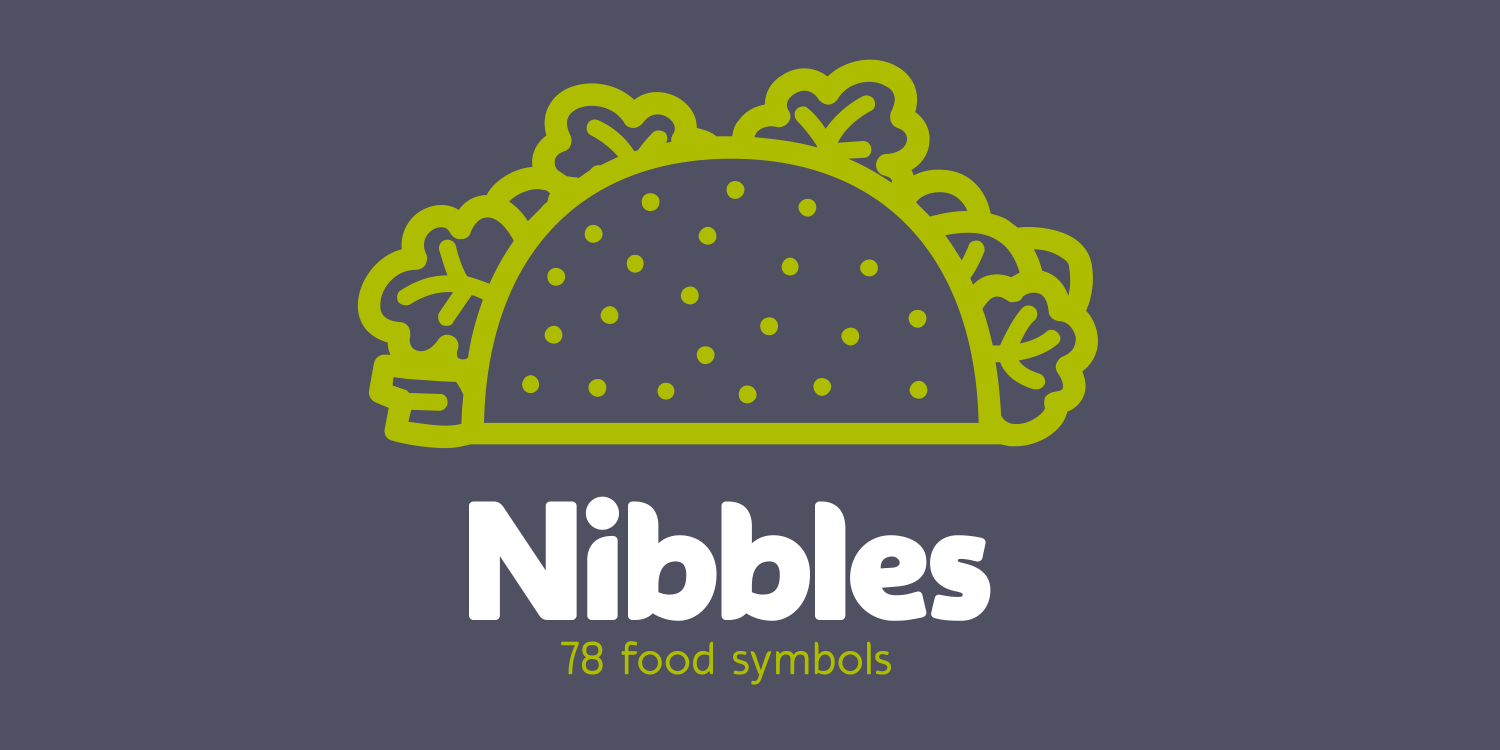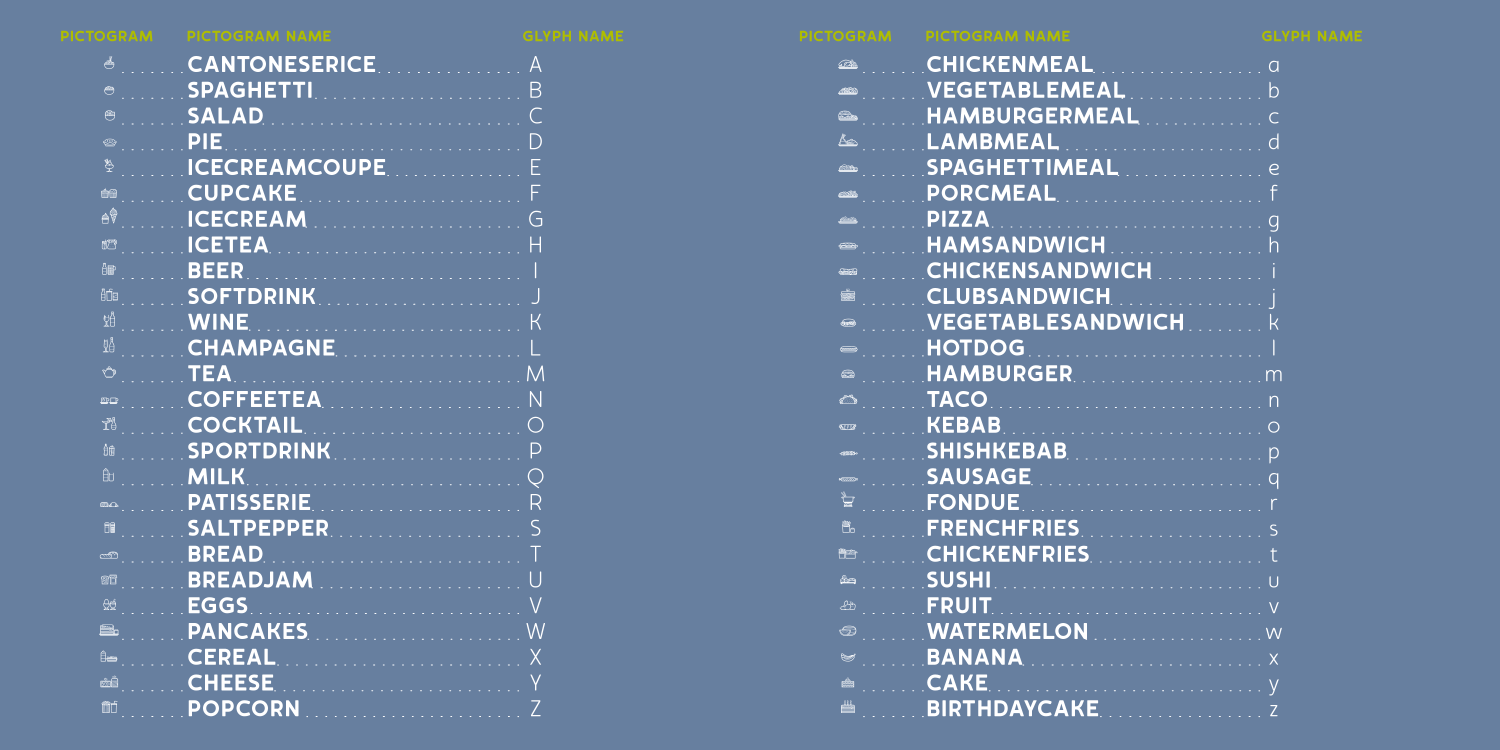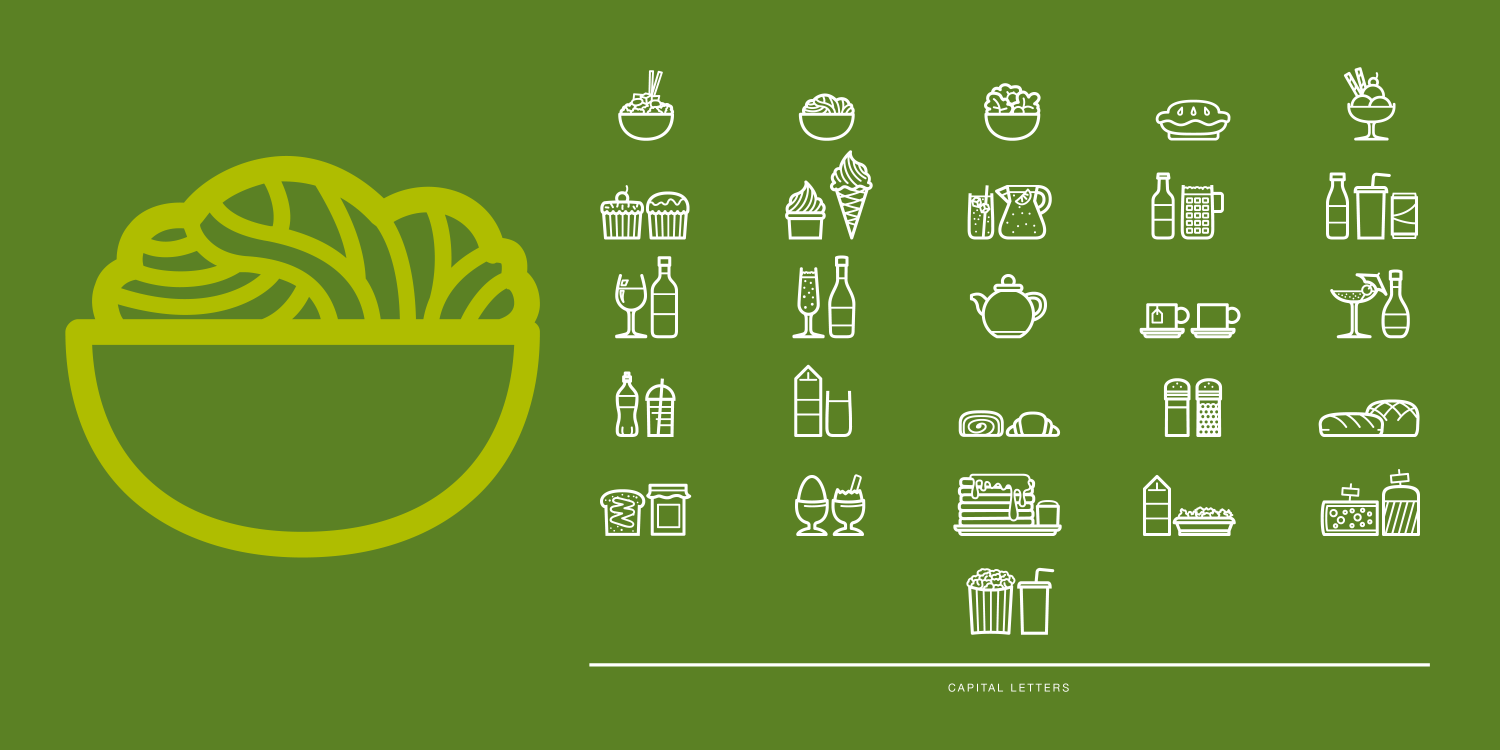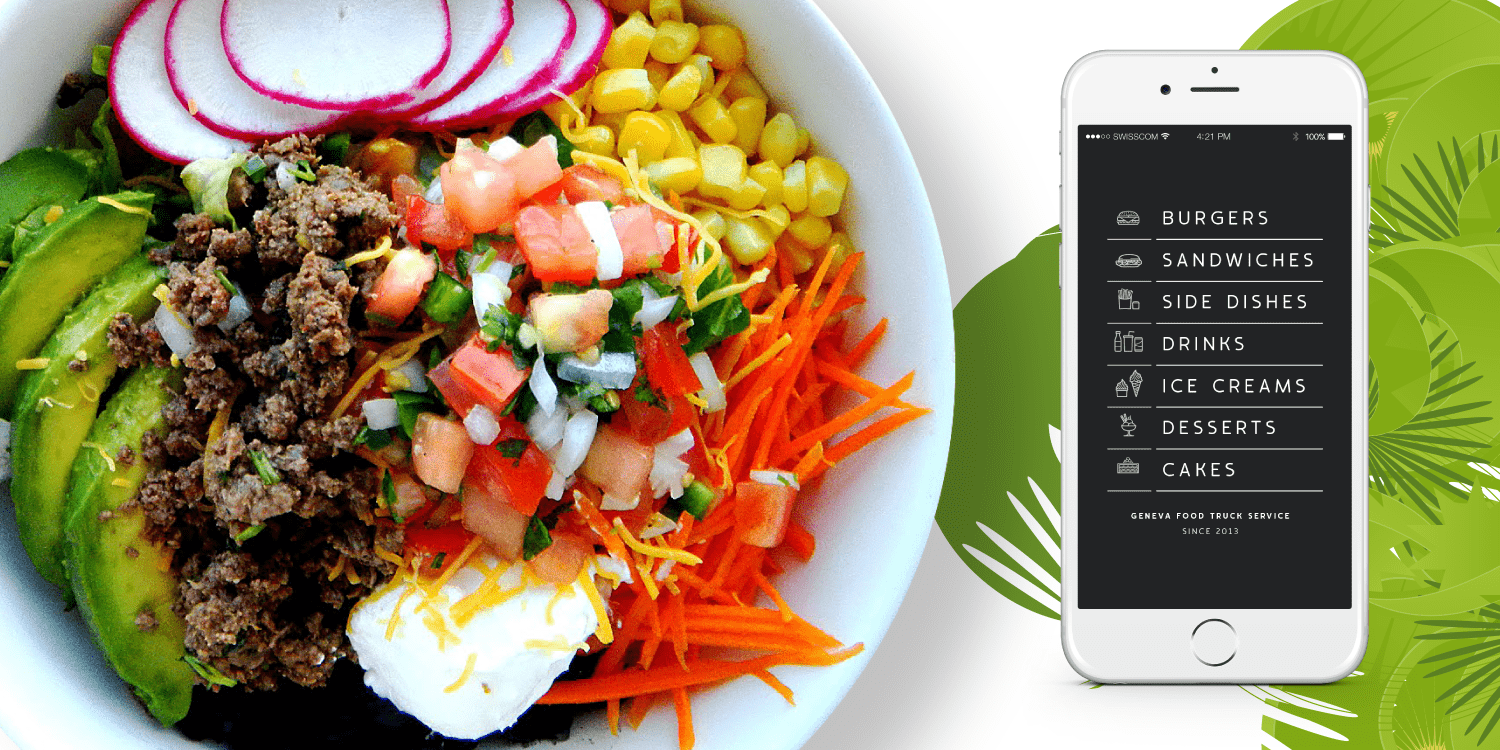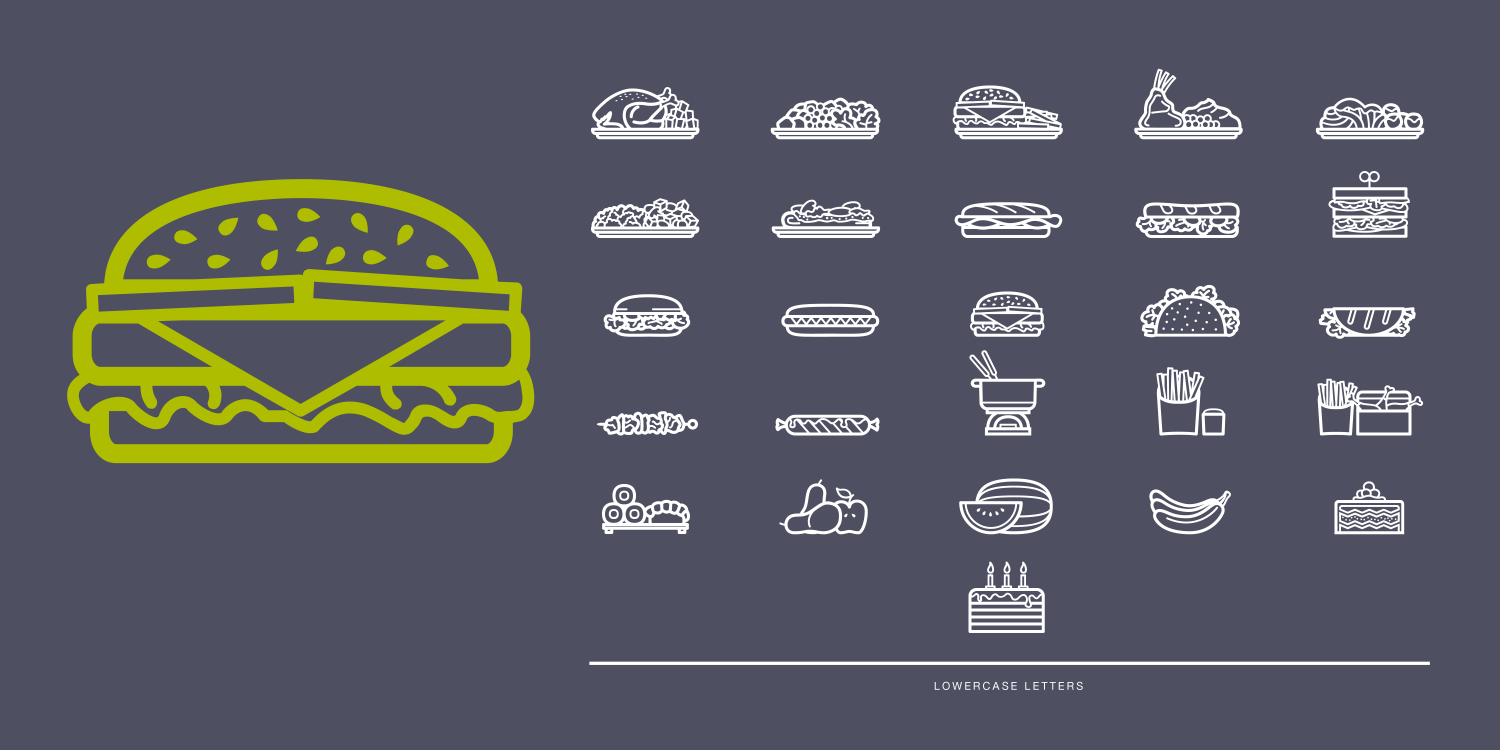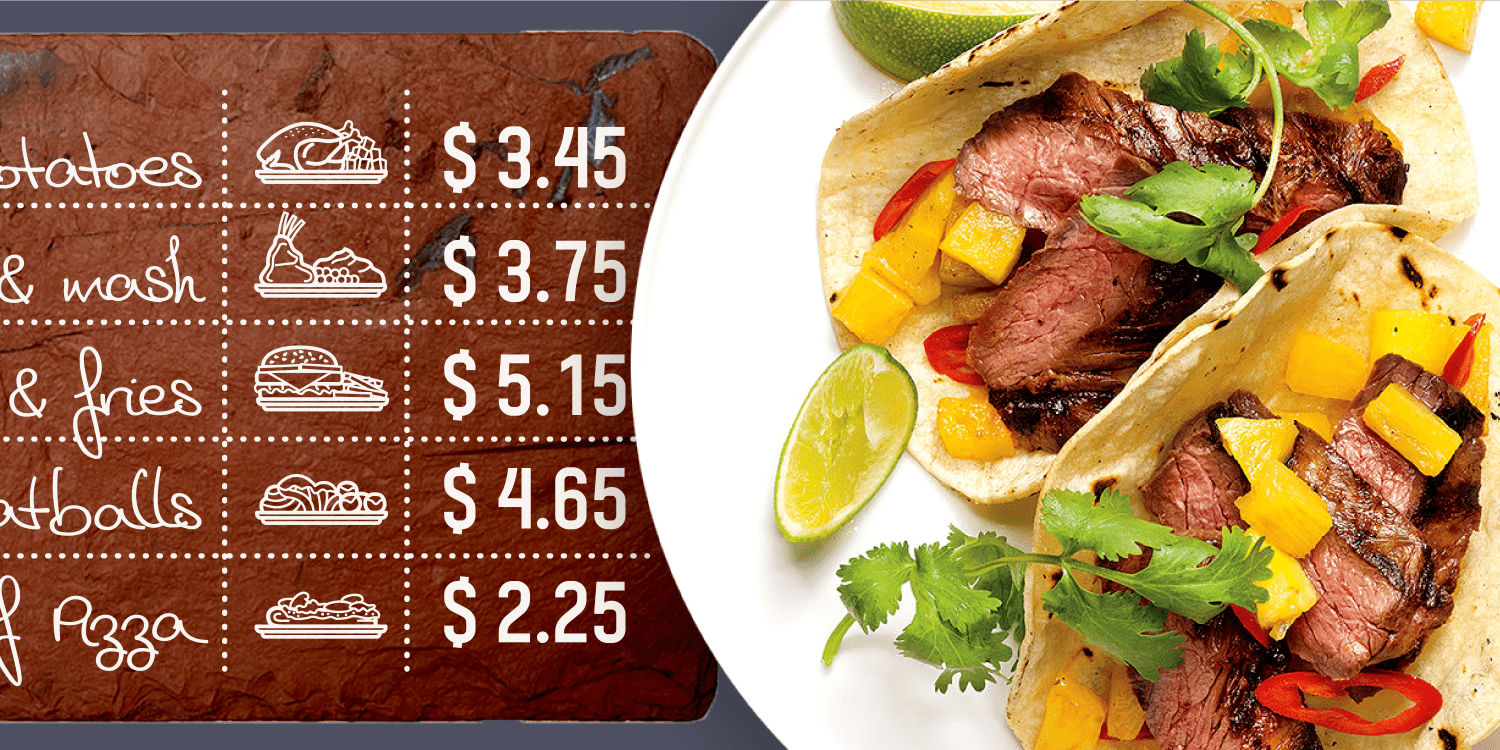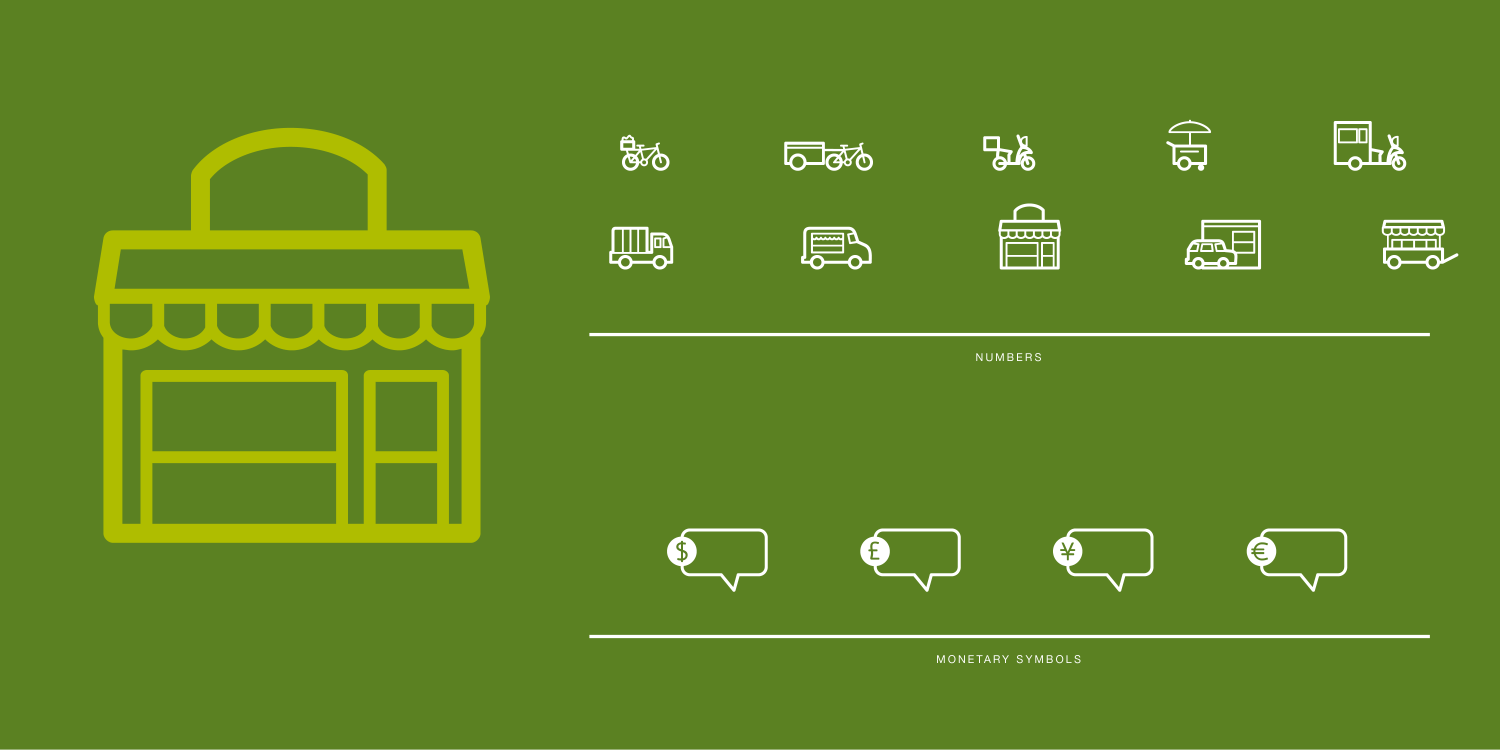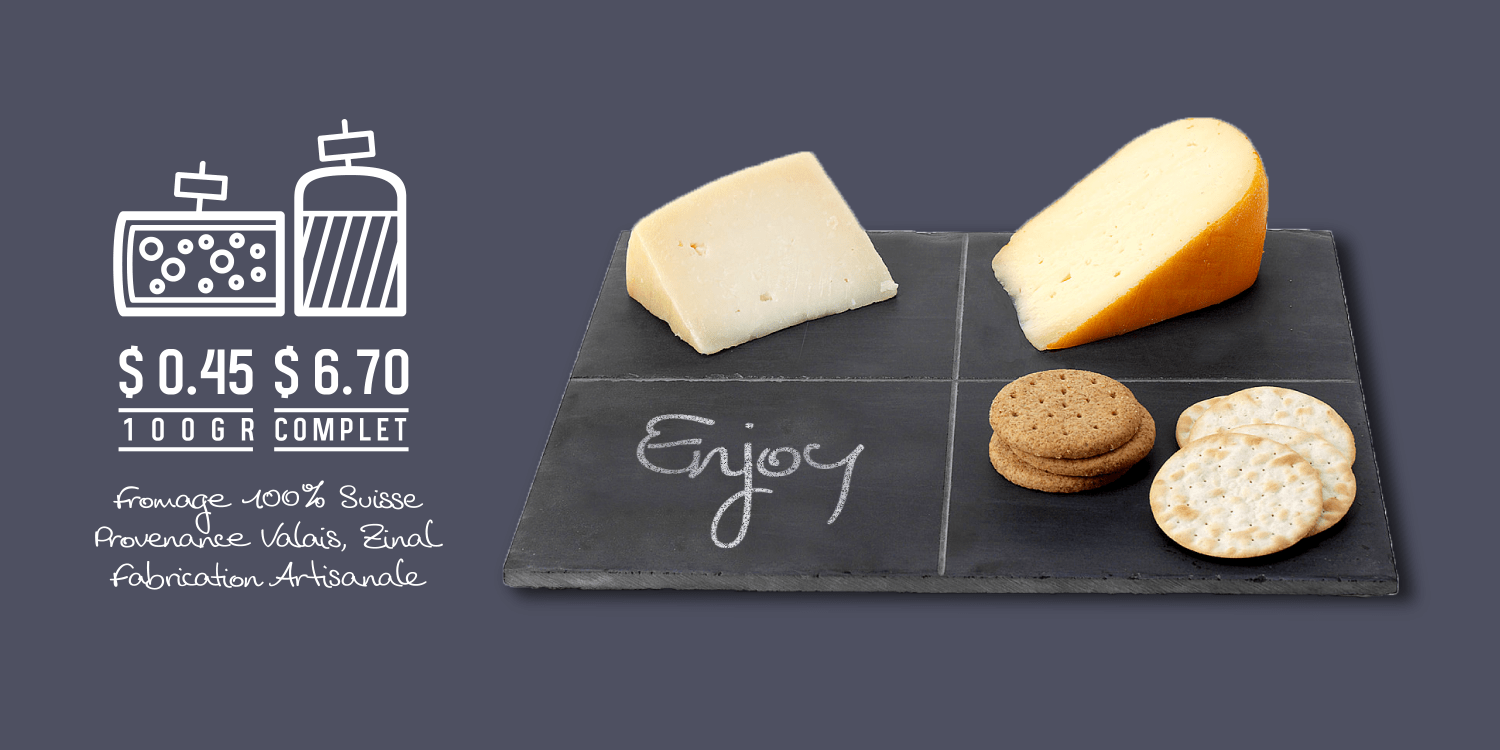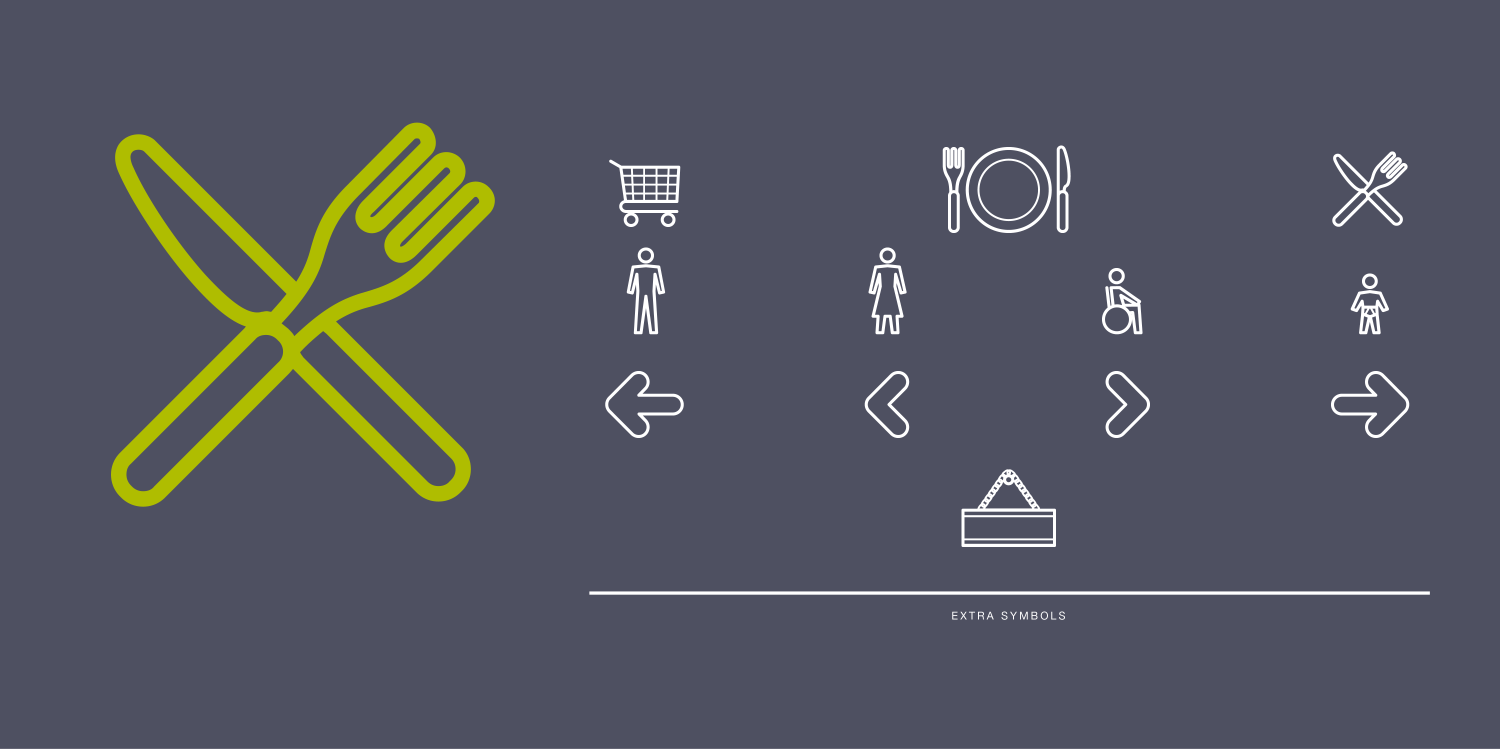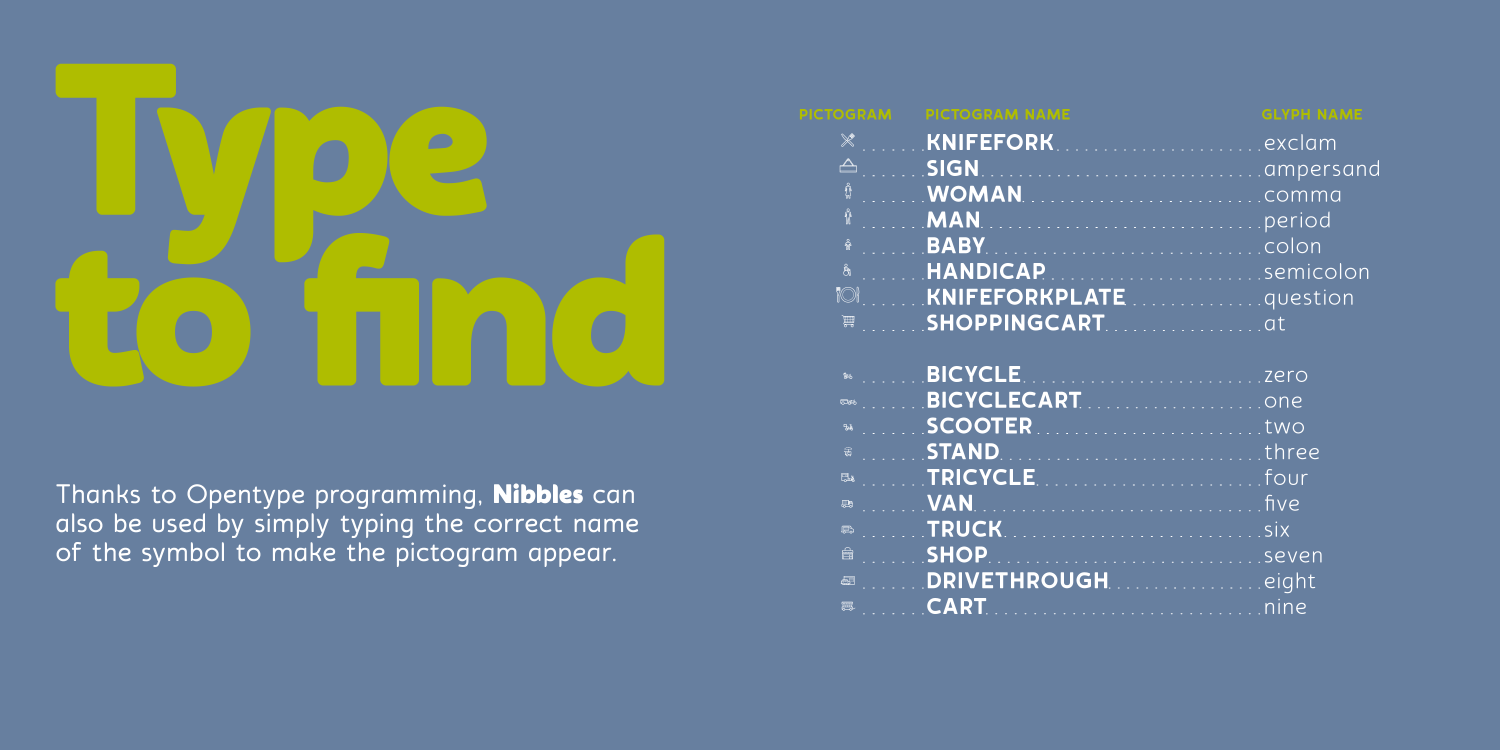
Nibbles
Nibbles is a linear dingbat typeface inspired by the theme of food and food trucks. With symbols ranging from burgers, pancakes or dessert to food trucks and toilet signs, this font aims to cover all your hungry design needs! To help with it’s application, each pictogram can either be found through it’s glyph placement but equally by simply typing out the name of the food item, so type burger, and presto, your burger pictogram will appear!
With it’s extensive symbols and simply application, Nibbles can be used for branding, menus or editorial layouts, posters and any food related projects.